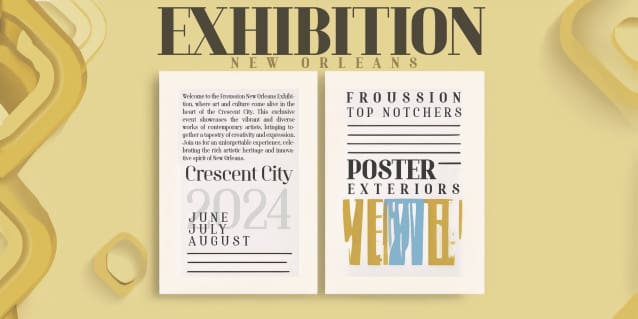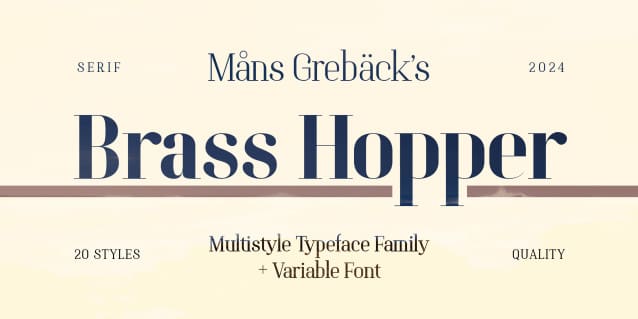
Brass Hopper Body Font
Brass Hopper Body Font is a serif font that embodies structural design. A modern geometrical typeface, Brass Hopper is characterized by strict shapes and a touch of formality.